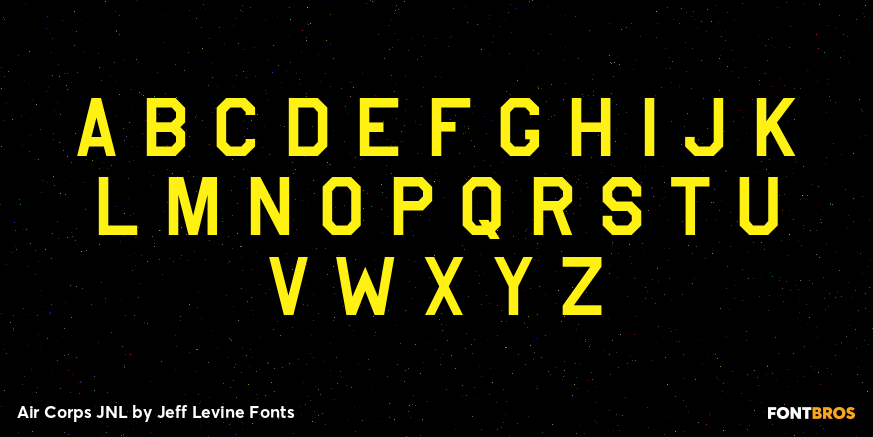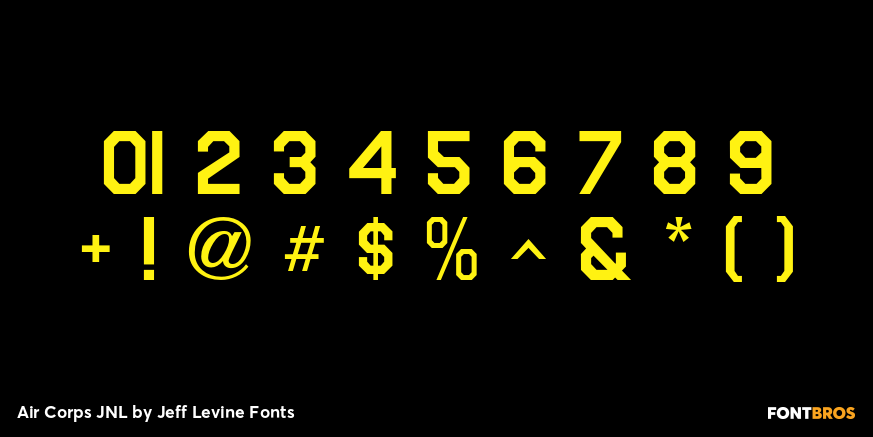
Air Corps JNL
Buy NowWhat started as a small project for Mike Humphrey of Chiltern Image Service in the UK ended up as Air Corps JNL, a typeface featuring retro letters and numbers from military aircraft. Expanded to a full character set with punctuation, foreign accents, monetary figures and the like, Air Corps JNL is also available in an oblique version.